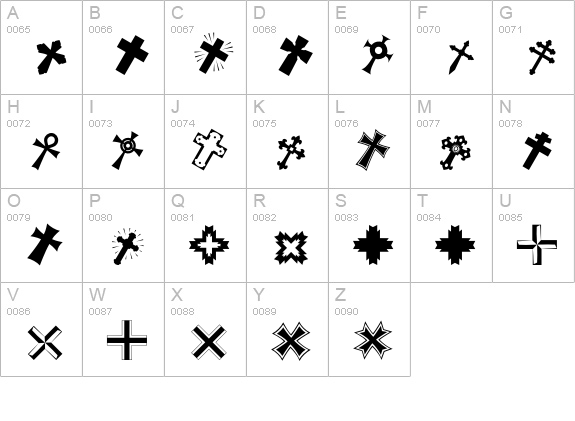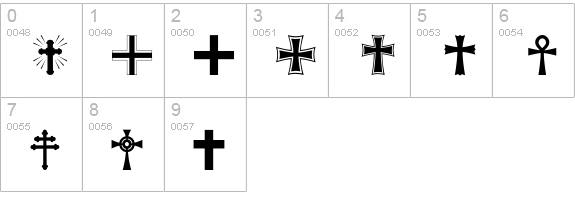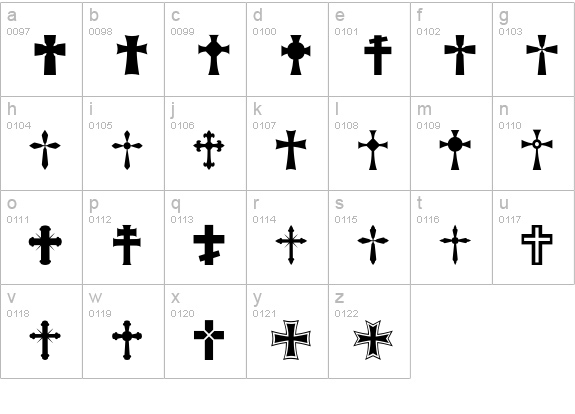
AltemusCrosses Font Details
AltemusCrosses font is a unique and eye-catching typeface that exudes elegance and sophistication. Its intricate design features beautifully crafted crosses that add a touch of religious symbolism to any project. This font is perfect for creating stunning invitations, greeting cards, posters, and more. The best part about AltemusCrosses font is that it is completely free to download at FontsMarket.com. You can easily access this versatile font and elevate your designs without any cost. Don't miss out on the opportunity to enhance your projects with the timeless beauty of AltemusCrosses font. Download it today and let your creativity shine!